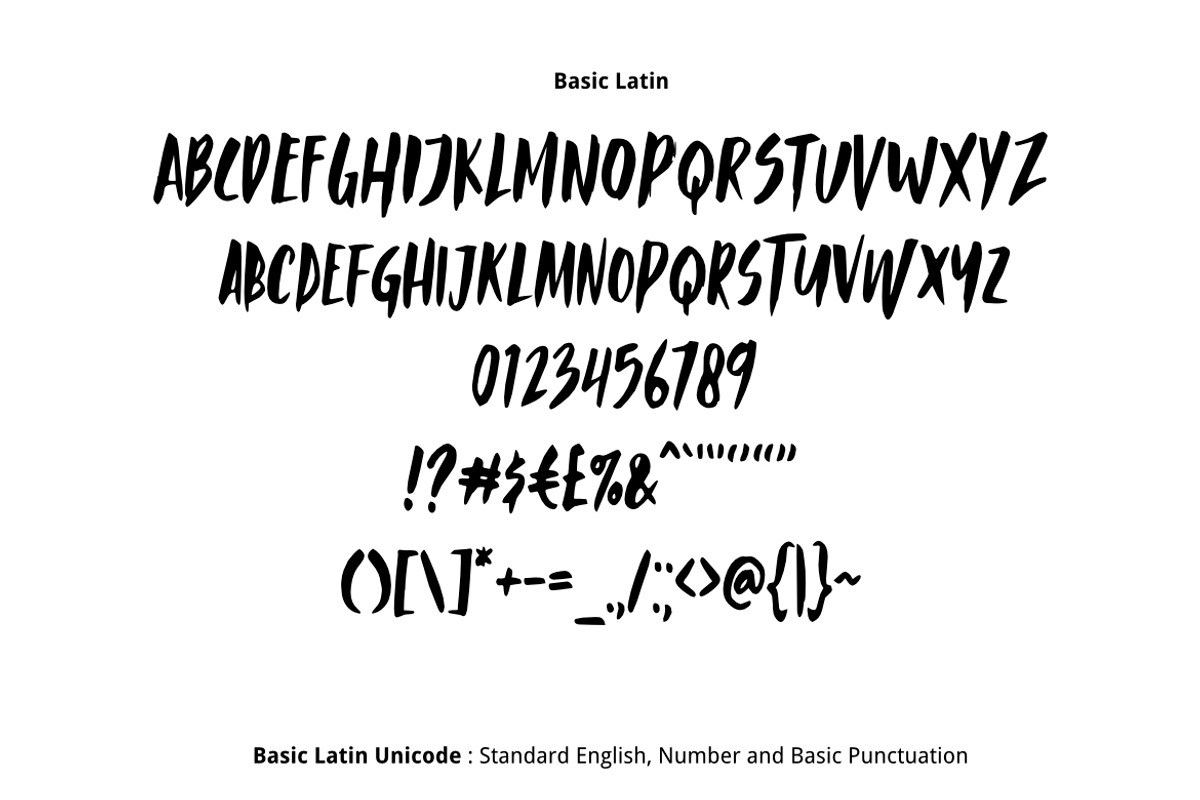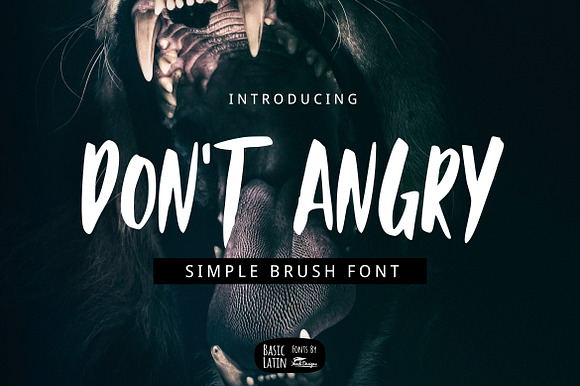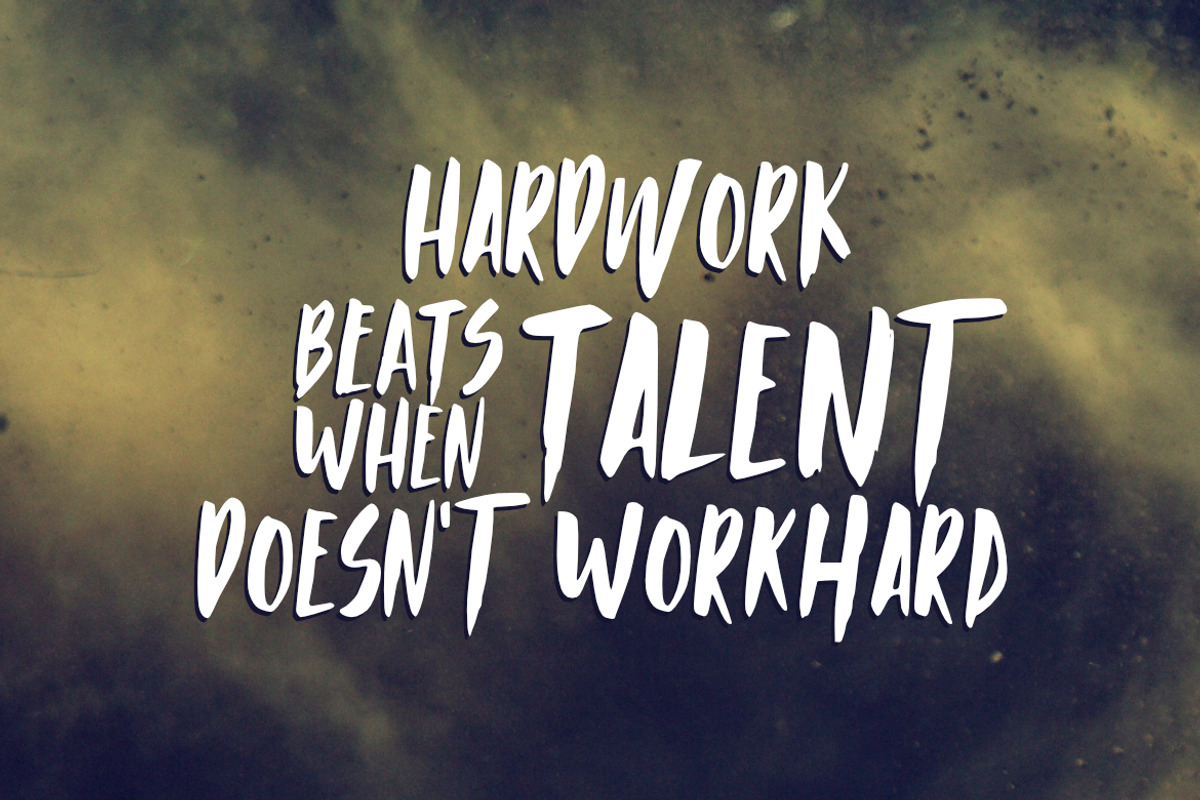
Don't Angry Font
Don't Angry font is simple multipurpose handmade font , suitable for many project children book, quotes, logo , heading , title etc.
Don't Angry Font by YandiDesigns fits naturally into Branding, posters, packaging, typography.